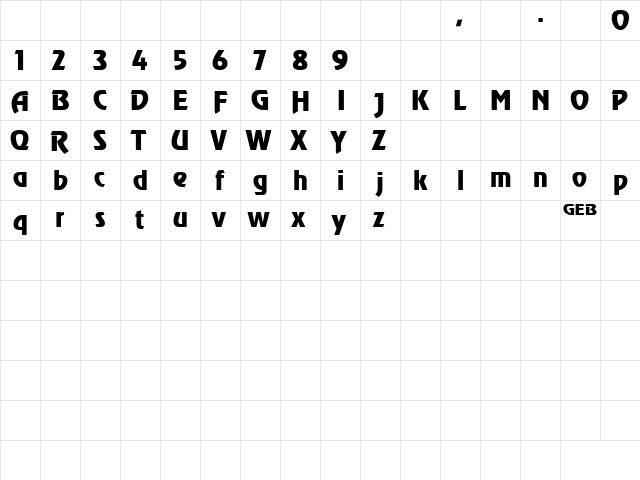
TQF_Reveal Regular Font Preview
TQF_Reveal Regular
Design Context for TQF_Reveal Typeface
TQF_Reveal offers clean, dependable letterforms without strong stylistic allegiance, making it a practical choice for designers who need flexibility.